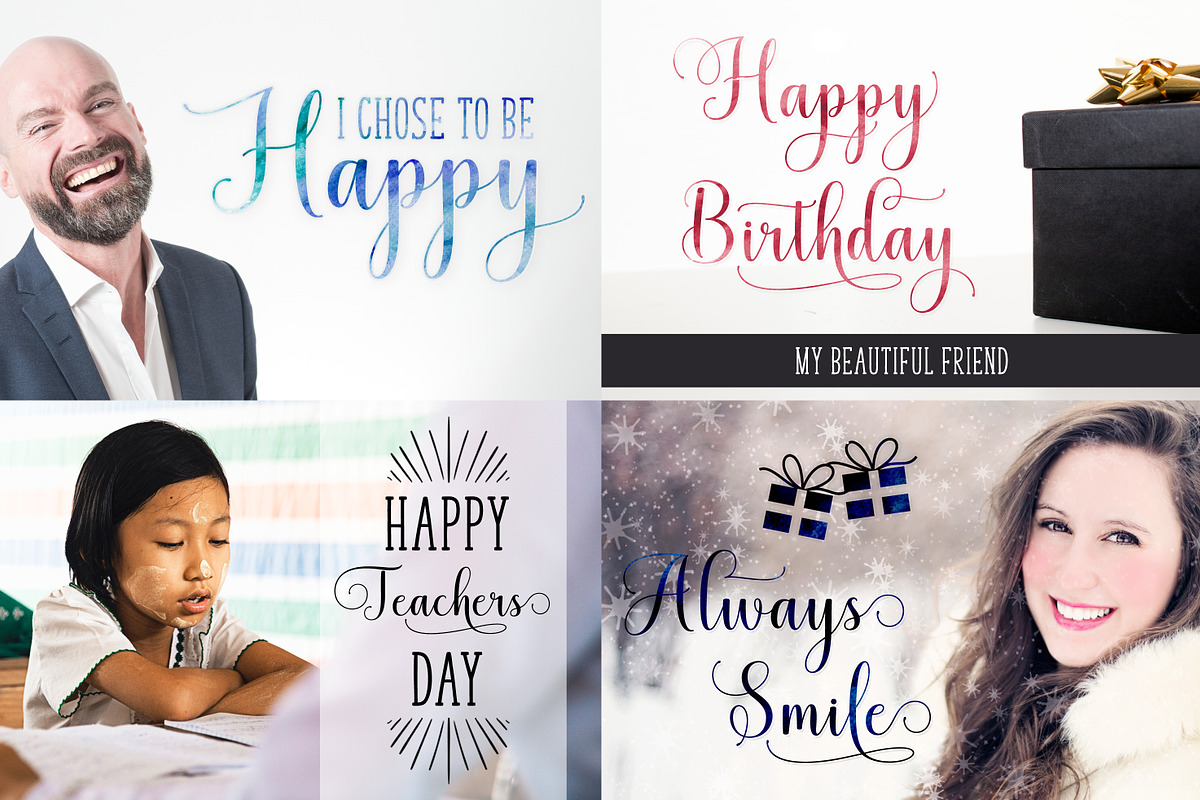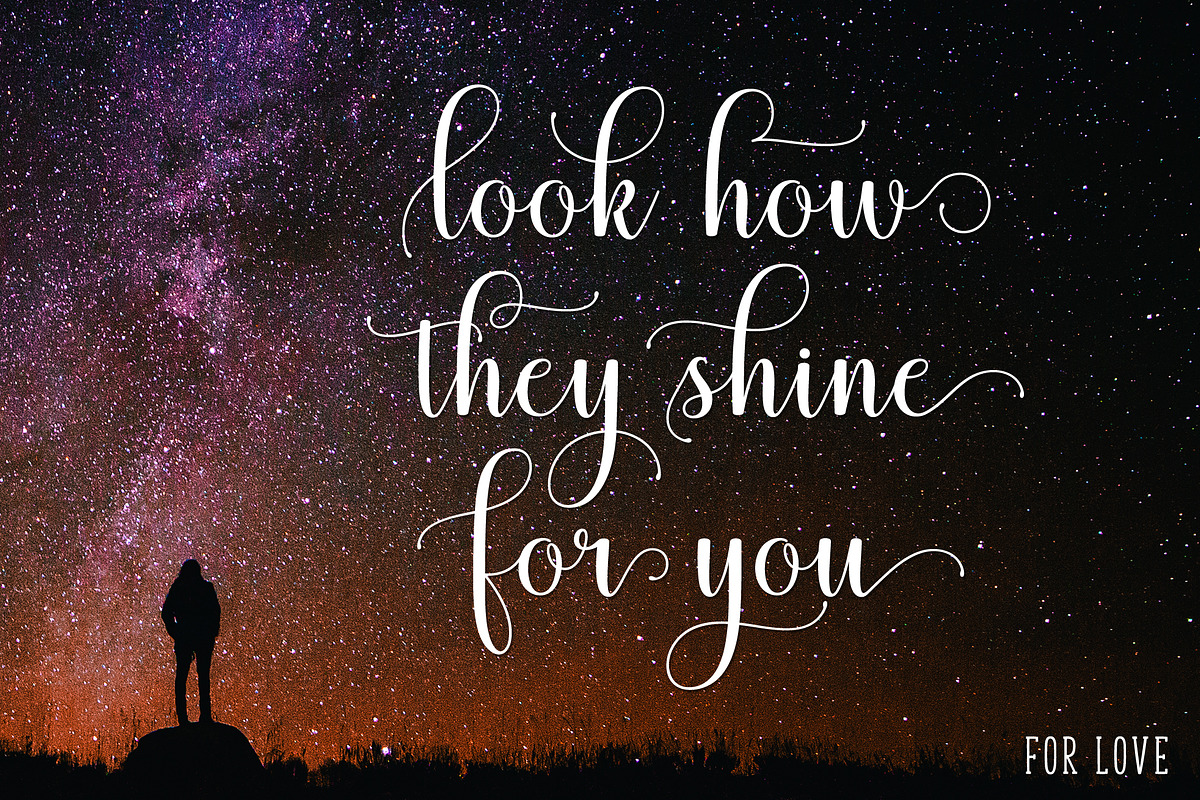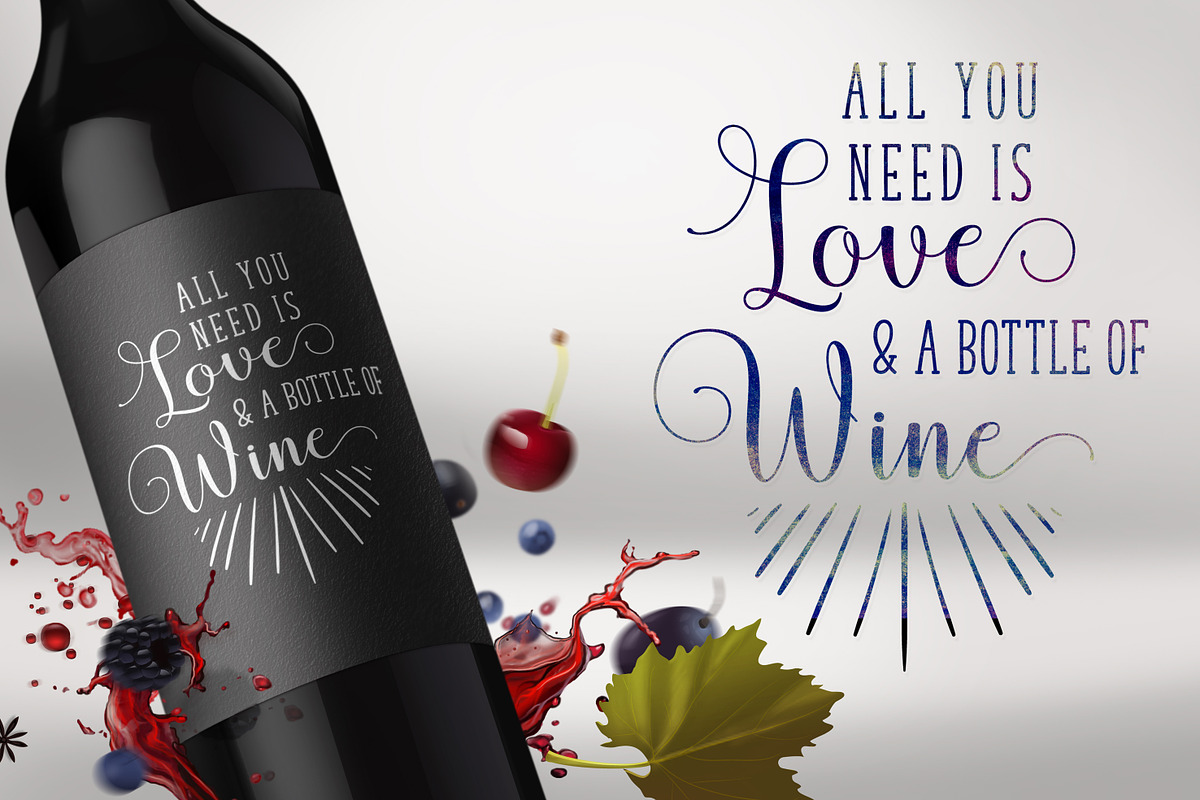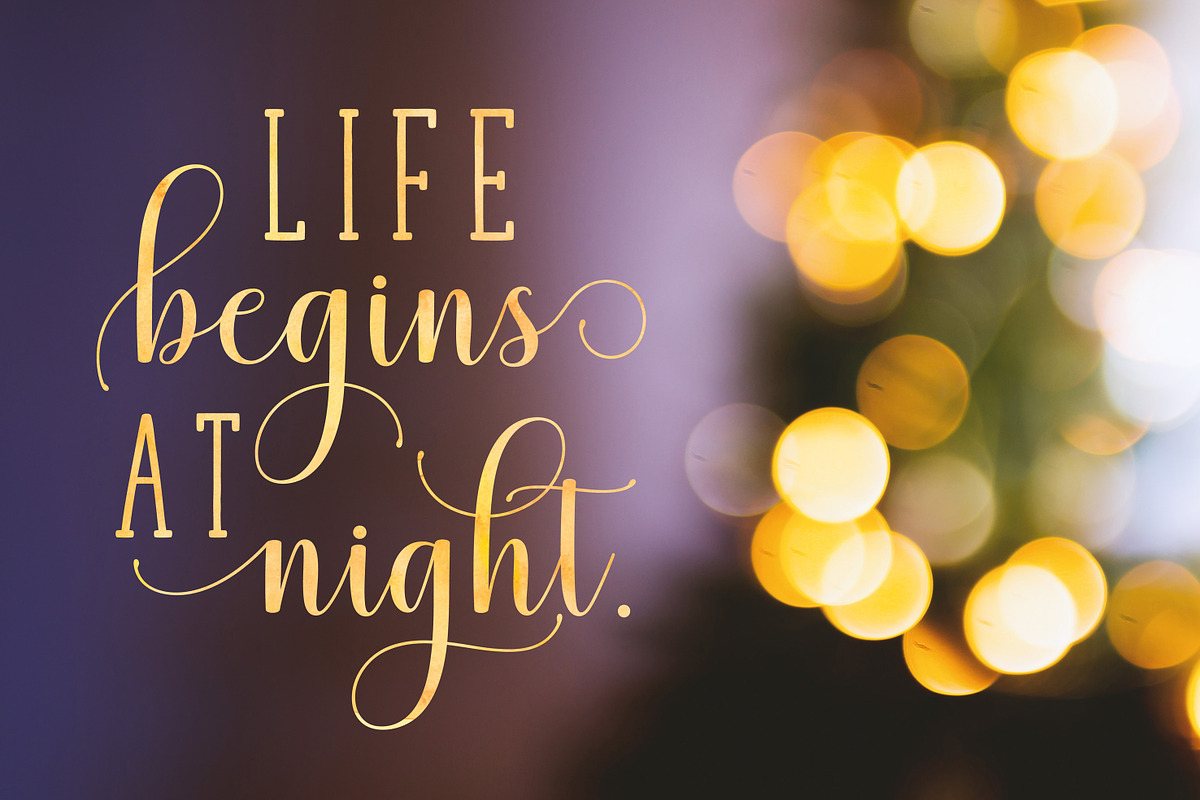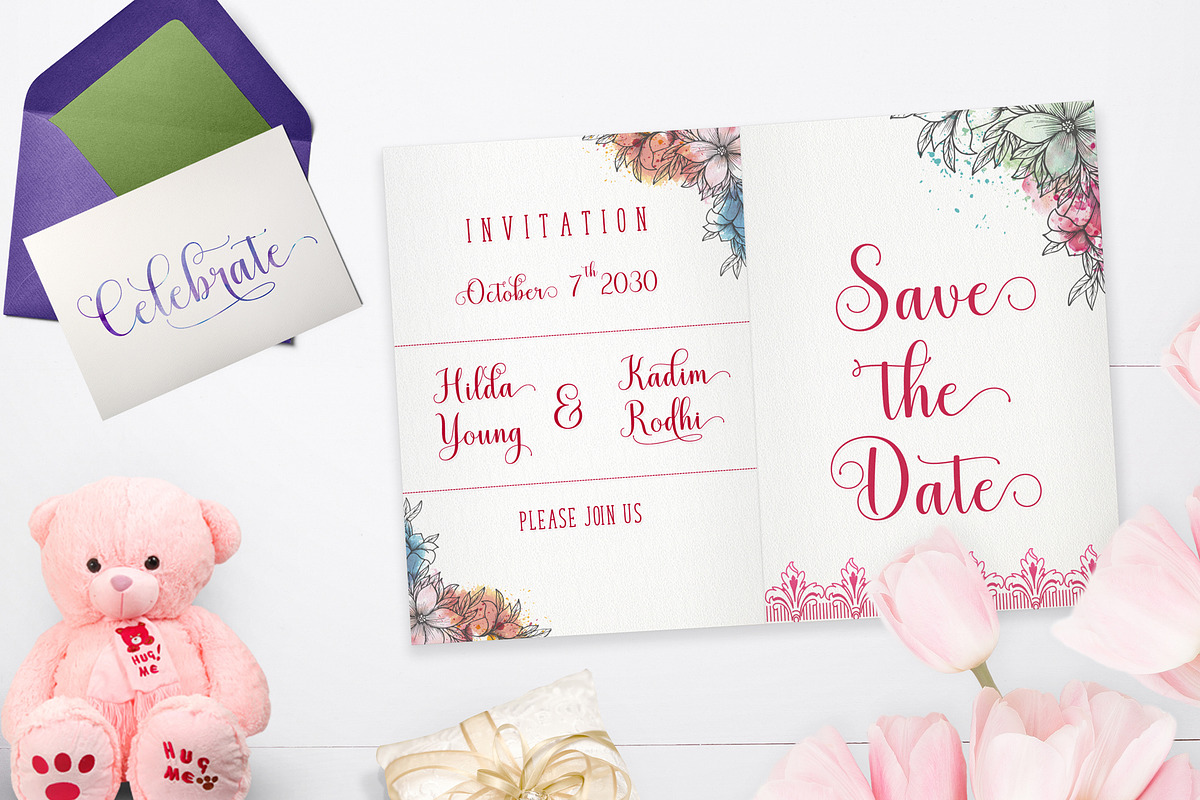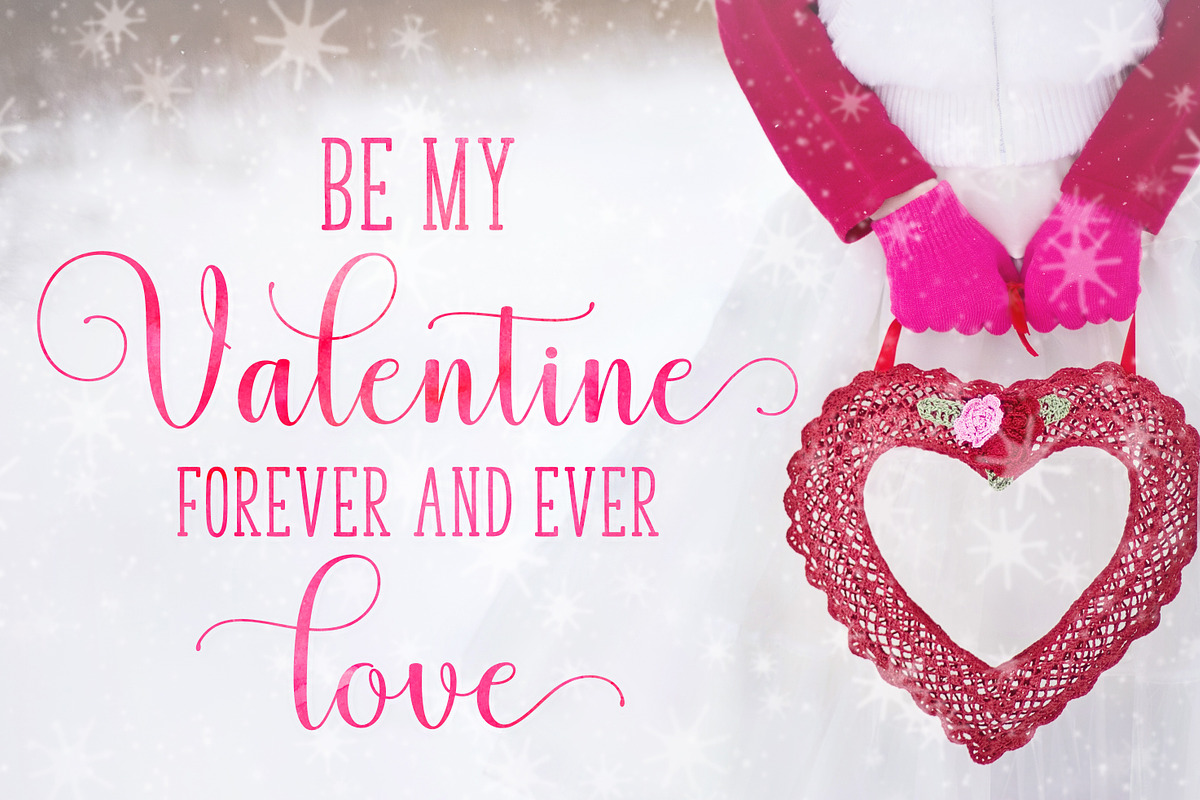
Mistletoe - Font Duo | 30% Off by Barland Design is a font selected for branding, posters, packaging, typography.
- Basic Latin A-Z and a-z
- Numeral & Punctuation
- Stylistic Set & Ligatures
- Script 952 Glyphs
- Sans 231 Glyphs
- Latin Pro Support Character
- Mistletoe Sans Regular
- Mistletoe Script Regular
Why Mistletoe - Font Duo | 30% Off is worth a look
Mistletoe - Font Duo | 30% Off by Barland Design fits naturally into Branding, posters, packaging, typography.